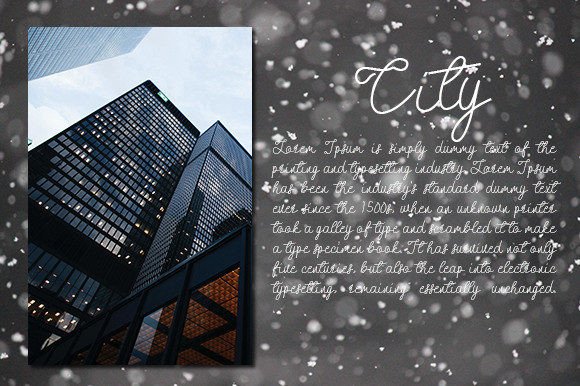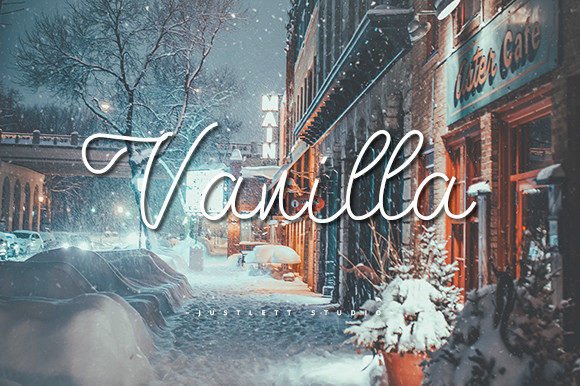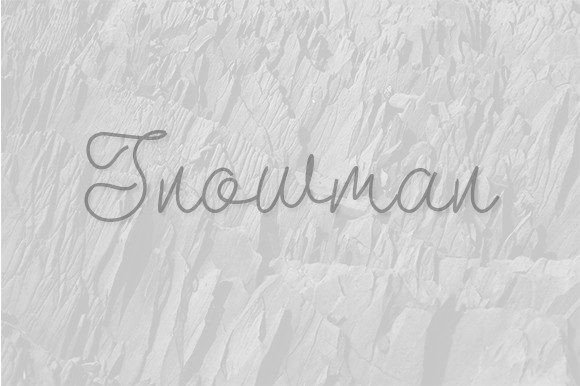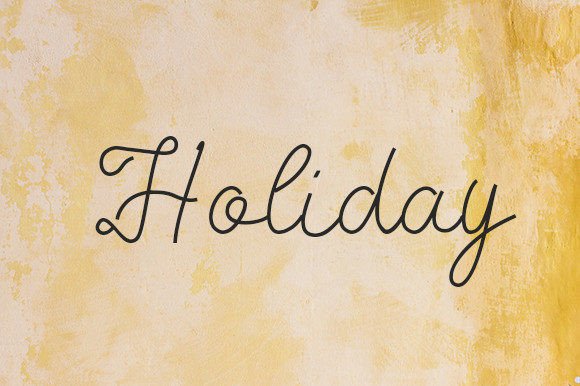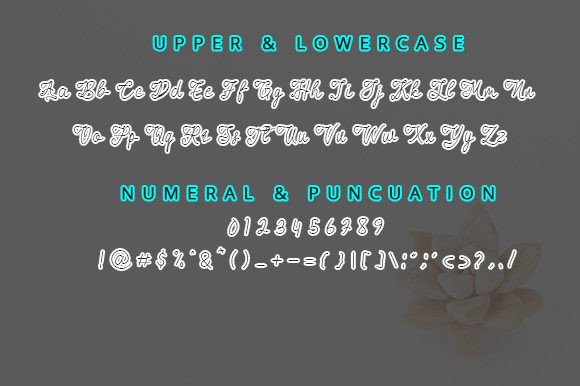
Vanilla Latte Font
About Vanilla Latte Font
The Vanilla Latte font is a handcrafted script that blends elegance with a playful edge. Designed to evoke warmth and charm, this font is ideal for creative professionals and hobbyists alike. Whether you’re working on personal branding, stylish packaging, or romantic invitations, Vanilla Latte brings your words to life with grace.
Inspired by the swirling beauty of calligraphy and the comfort of your favorite coffeehouse, this font adds a cozy, inviting touch to every project. Its stylish letterforms dance across the screen or paper, giving your designs a unique signature feel.
Why You’ll Love Vanilla Latte Font
Vanilla Latte was made to stand out while still maintaining readability. The script’s smooth curves and balanced rhythm make it suitable for both headlines and body text. It looks just as stunning on a logo as it does in a quote graphic or blog banner.
Here’s what makes Vanilla Latte font special:
• Hand-drawn elegance
• Smooth letter connections
• Balanced weights for legibility
• Stylish ligatures for extra flair
• Modern, yet timeless personality
The font also includes multilingual support, so you can expand your reach across languages and regions. Ligatures and alternates enhance its usability and allow for flexible customization in your layout.
This typeface isn’t just pretty—it’s practical. The spacing and sizing were carefully adjusted to ensure it performs well in various applications. Whether printed on paper or shown on screen, the Vanilla Latte font maintains clarity and impact.
Designers often say this font “feels like a signature”—and it’s true. It adds a handcrafted, polished touch that’s hard to replicate. This makes it a strong choice for branding, especially for fashion, beauty, lifestyle, and artisanal products.
Whether you’re designing for a client or your own personal project, Vanilla Latte font offers a balance of beauty and usability. With its modern calligraphy style, this font is a delightful addition to any designer’s toolkit.